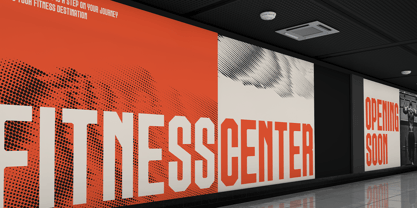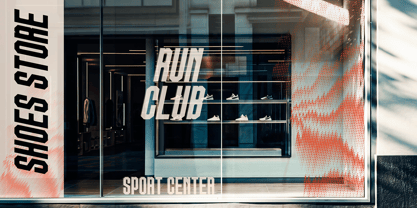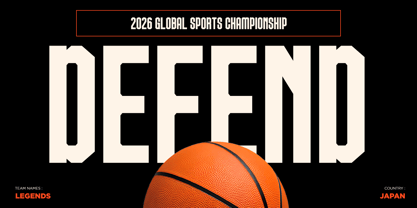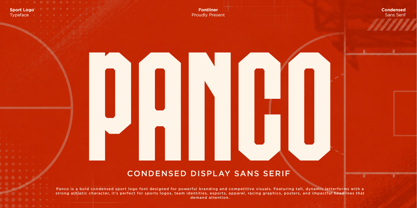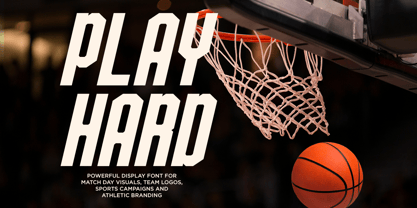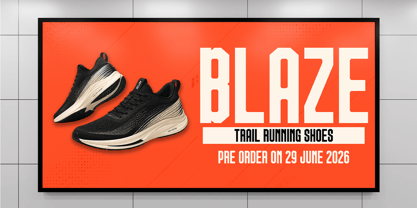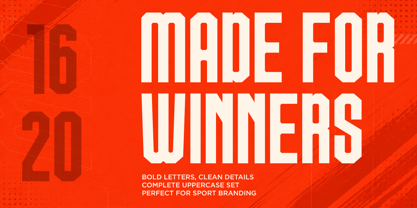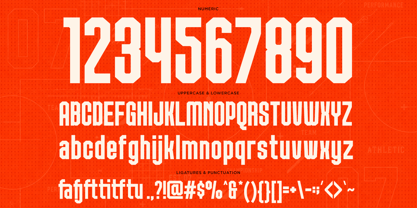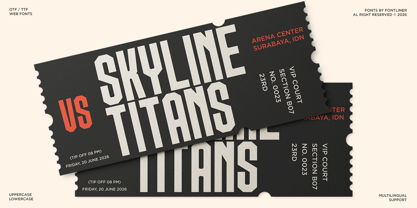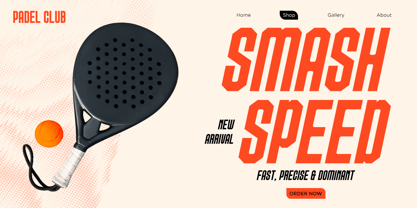
Panco
The Panco Font Family was designed by Ghina Luthfiarieska and published by Font Liner. Panco contains 2 styles and family package options. More about this family
Panco is a bold sports condensed sans font engineered for high-impact branding and competitive visuals. Built with tall proportions, strong geometric construction, and clean angular details, it delivers an energetic presence that instantly captures attention. Every character is designed to maximize readability while maintaining a powerful athletic personality, making it the perfect choice for bold headlines and iconic logo designs.
Inspired by modern sports culture, urban aesthetics, and professional team identities, Panco is ideal for sports logos, esports branding, fitness campaigns, racing graphics, gym promotions, packaging, event posters, and digital advertisements. Its condensed structure allows designers to create large, commanding typography while saving valuable layout space, resulting in compositions that feel fast, confident, and dynamic.
Perfect for sports logos, athletic branding, esports teams, fitness campaigns, racing graphics, merchandise, posters, packaging, and editorial headlines, Panco brings bold energy and modern precision to every creative project. Complete with uppercase and lowercase characters, numerals, punctuation, multilingual support, it offers the flexibility to build distinctive identities and eye-catching designs across both print and digital media.